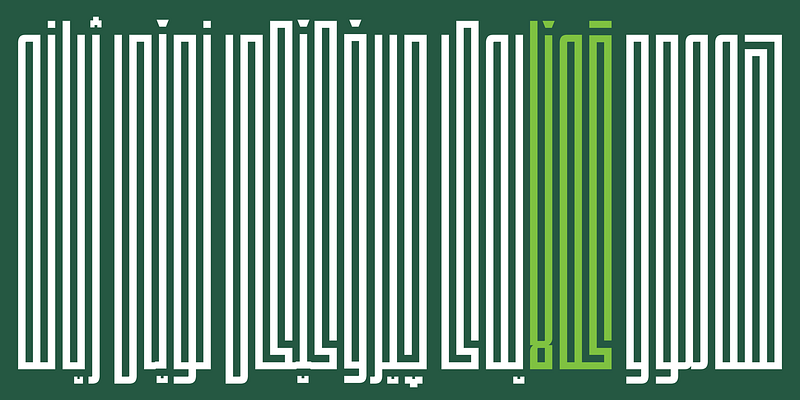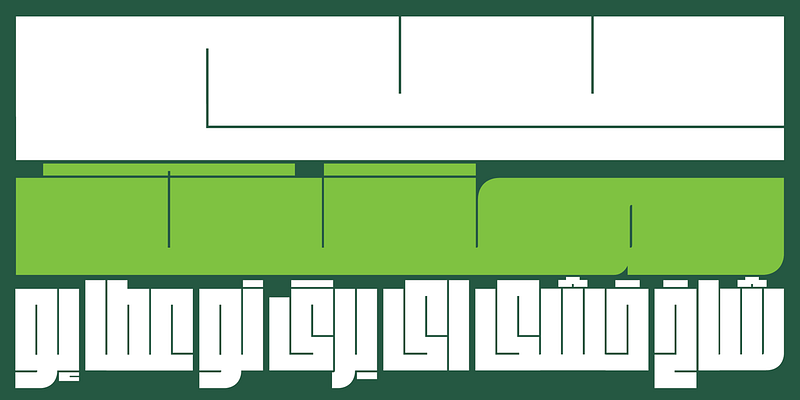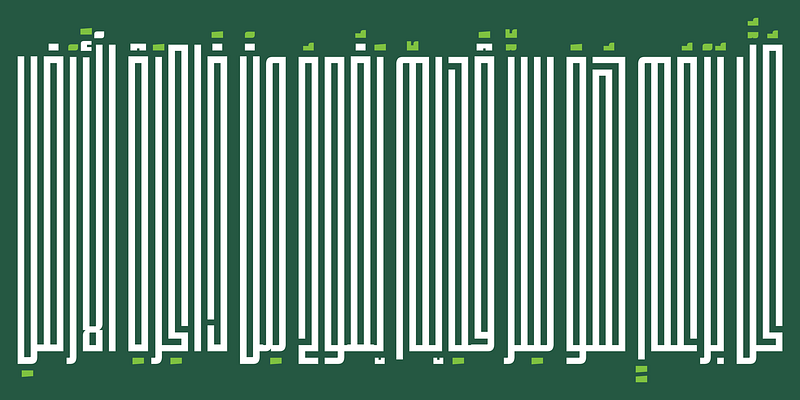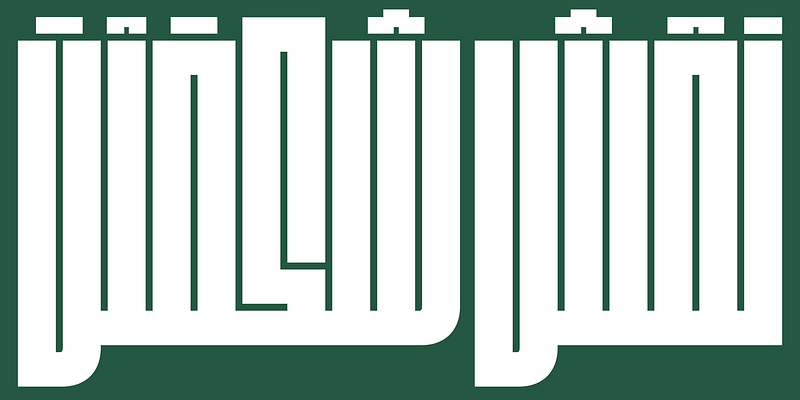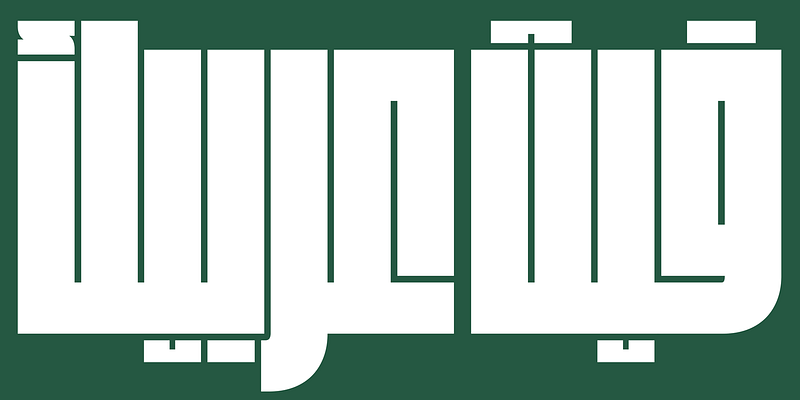
Fit is a hyper-stylized series of caps designed to fill up space with maximum impact. With an expansive range of widths, you can use Fit to take just about any text and fit it into just about any space. In 2026, Sahar Afshar adapted the design to the Arabic script, adeptly balancing Fit’s blocky simplicity with the architectural logic of Square Kufi. Fit Arabic translates the script’s interlocking, puzzle-like geometry into the bold, systematic world of the Fit family.